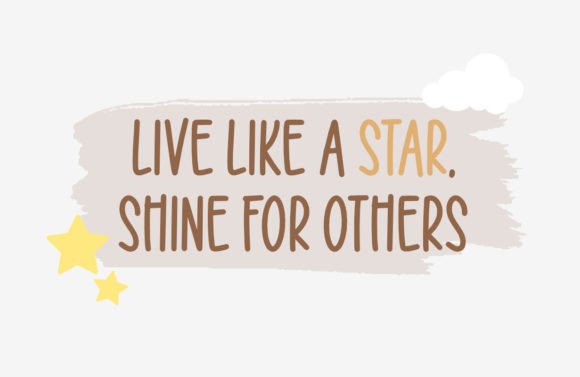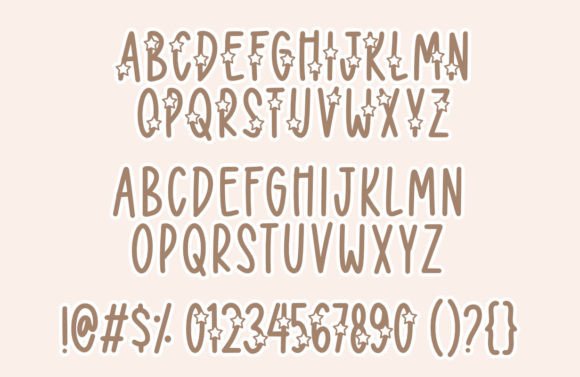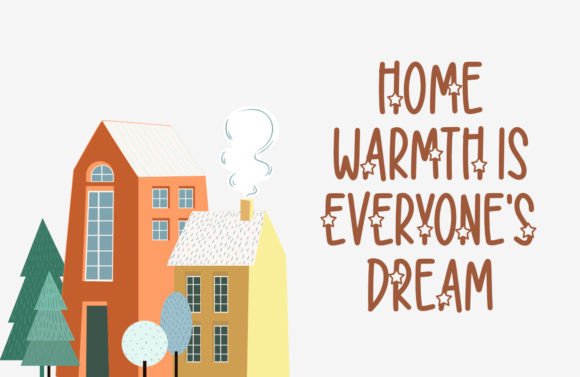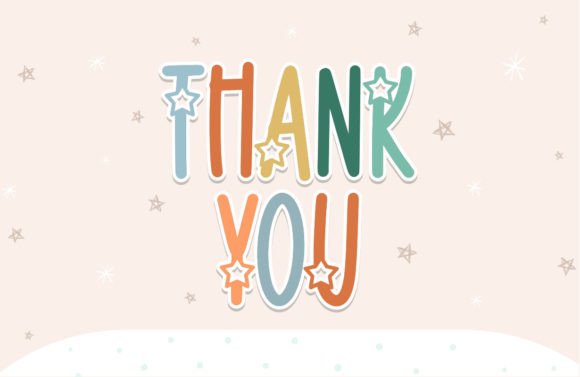
Bintang Bright Font
A Cute Star-Themed Handwritten Display
Bintang Bright is an adorable handwritten font with a fun, star-inspired theme. Its playful strokes and charming details make it perfect for any project that needs a touch of personality. From children’s designs to modern branding, this font adds a happy, creative feel that everyone will love.
Bintang Bright’s simple shapes and friendly style make it approachable and easy to use. It’s a great way to add warmth to any visual project.
Bintang Bright is a versatile font that works well in many design settings. It’s perfect for kids’ birthday invitations, classroom posters, and storybooks. The star details and handwritten look make every piece feel extra special.
This font also shines in logos, stickers, and product packaging. If you want your brand to feel friendly and unique, Bintang Bright helps you stand out from the crowd.
It’s a wonderful choice for social media graphics, blog headers, and YouTube thumbnails. Whether you’re designing quotes or announcements, Bintang Bright makes your content feel cheerful and eye-catching.
Even planners, labels, and DIY crafts will look more fun when you use this star-themed font.
Clear, Fun, and Easy to Read
Despite its playful design, Bintang Bright remains clear and easy to read. The balanced spacing keeps your text neat at any size. Whether you’re working on large headlines or small labels, this font keeps everything legible and clean.
For best results, pair Bintang Bright with a minimalist sans-serif font. Use Bintang Bright for titles or main messages, and the sans-serif font for supporting text. This combination feels modern and professional while staying friendly and inviting.
To showcase Bintang Bright’s cute star theme, use light backgrounds and bright color palettes. Soft blues, warm yellows, and pastel pinks make the font pop without overwhelming the design.
When designing invitations or event materials, add small star illustrations or doodles that tie in with the theme. For branding or packaging, keep the layout simple so the handwritten style stands out.
On social media, embrace plenty of white space so the text stays clear and engaging. This helps Bintang Bright feel fresh and approachable.
Think about the mood you want to create. Bintang Bright is perfect for designs that feel playful, positive, and creative.
Bintang Bright isn’t just another cute font—it’s a design tool that helps you share joy and creativity. Whether you’re working on kids’ projects, branding, or everyday crafts, this font adapts easily to your vision.
Adding Bintang Bright to your font collection ensures you always have a fun, versatile option ready for any project. From logos to greeting cards, this star-themed font makes everything more special.